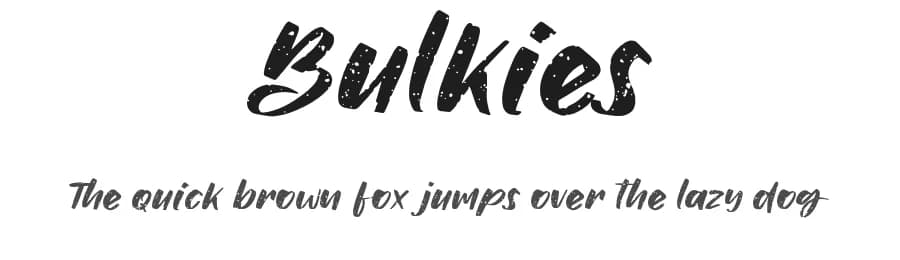
About Bulkies Font
Bulkies Font is a script font that shines as a display or heading face. Pair it with a clean sans-serif or serif font for body text β the contrast creates a clear hierarchy while the two styles stay balanced and easy to read.
Bulkies Font